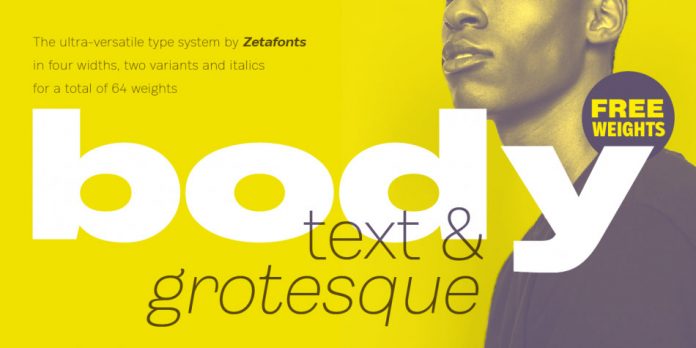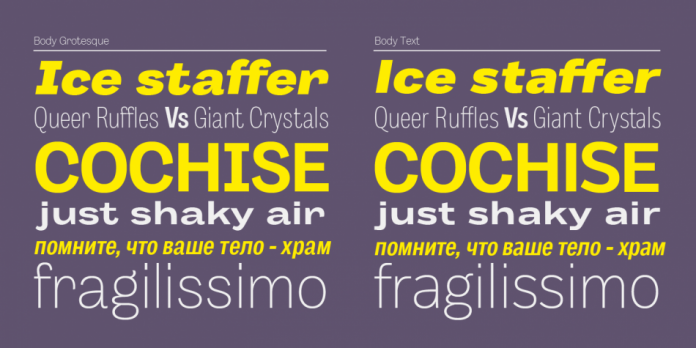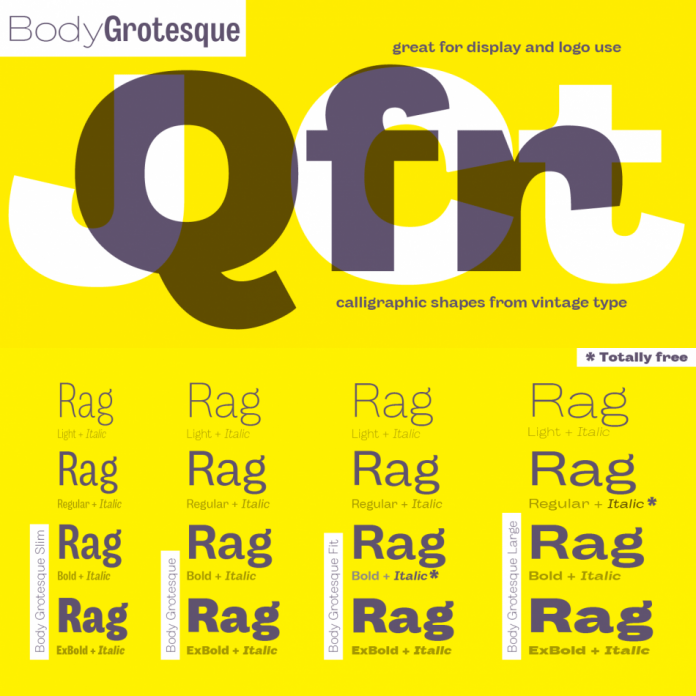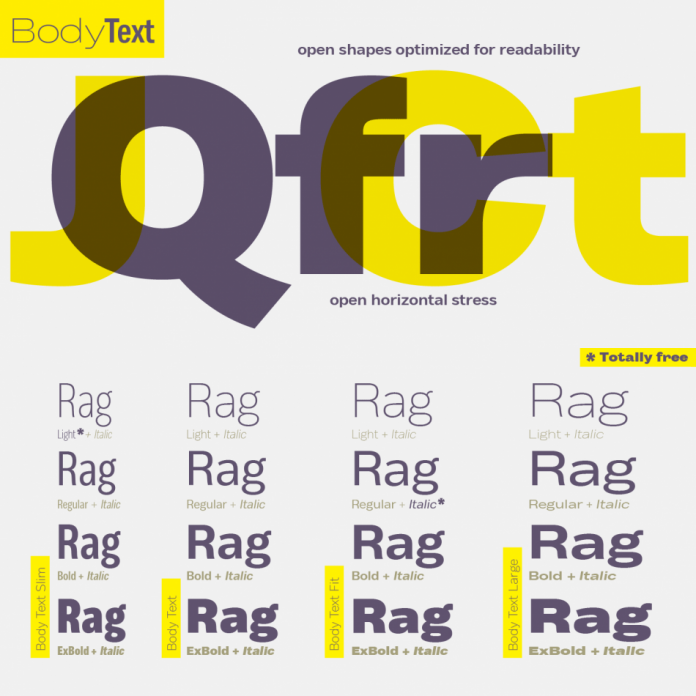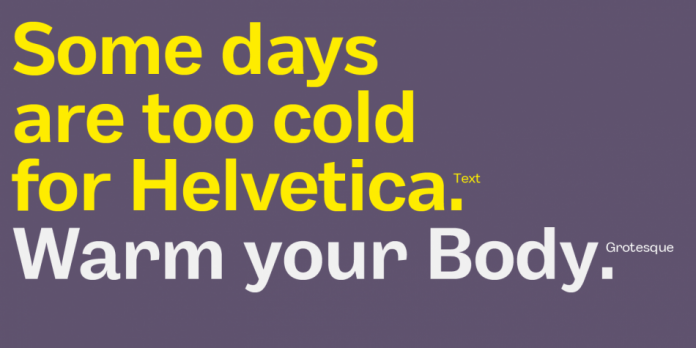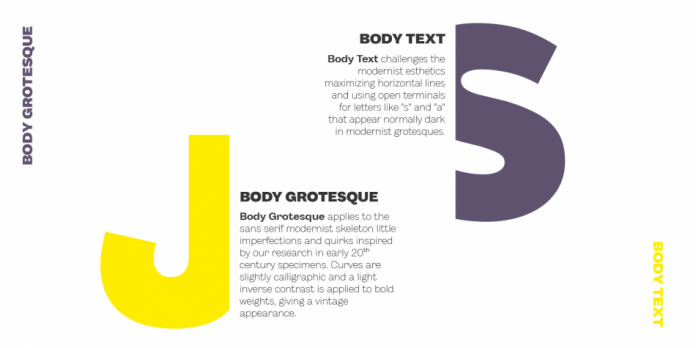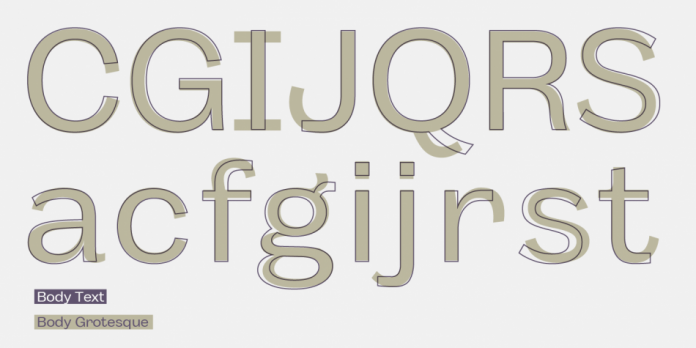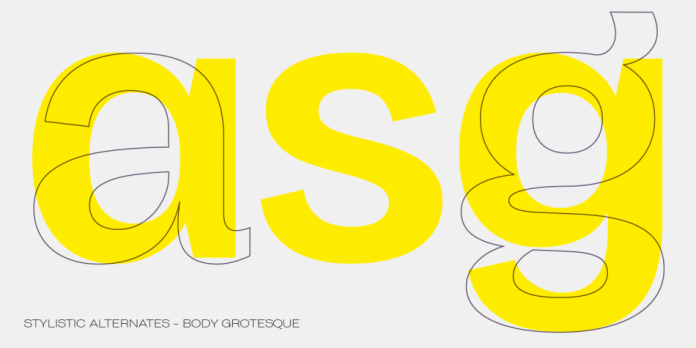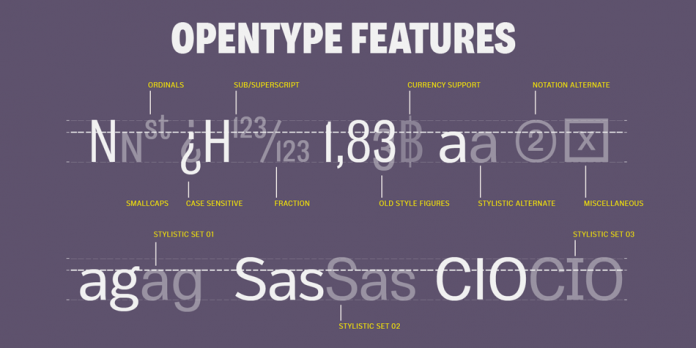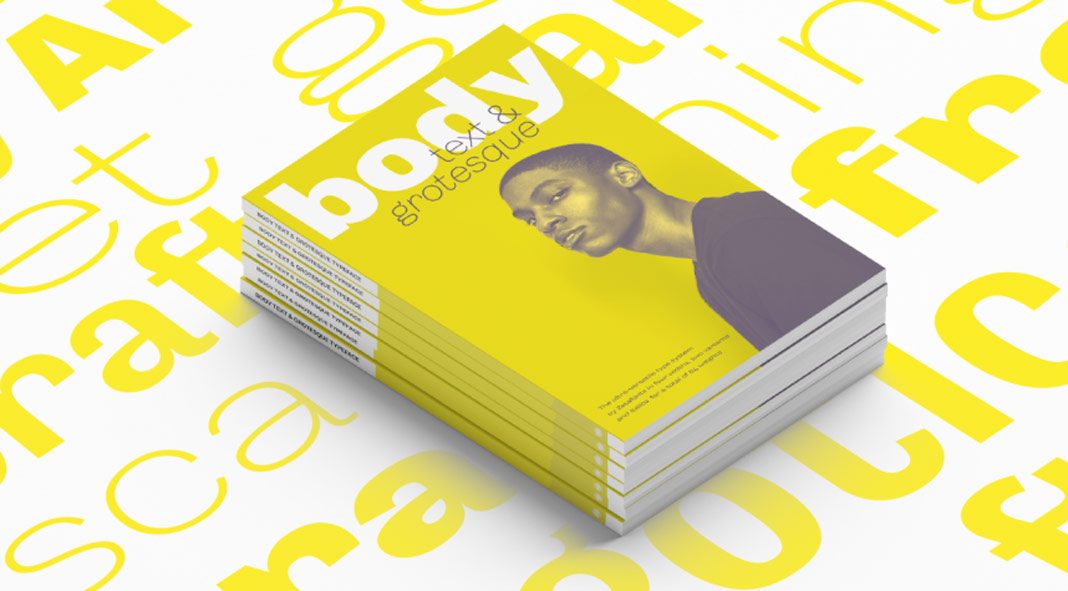
Designed by Cosimo Pancini and Andrea Tartarelli in 2018 for foundry Zetafonts, Body is a new sans-serif font family that comes with sixty-four styles. It has been developed as a contemporary alternative to modernist superfamilies such as Helvetica and Univers. The Body font family provides an optimized focus on readability while offering a versatile wide range of typographic options for the designer. The family includes two variants: Body Text and Body Grotesque. Each subfamily consists of four widths and four weights plus matching Italics. Please read more below or click on the following link to purchase the family.
Inspired by the designer’s research in type specimens of the early 20th century, Body Grotesque adds a little more humanist touch to the sans serif modernist design with little imperfections and quirks. Curves have a slightly calligraphic style while a light inverse contrast has been applied to bold weights
Based on maximized horizontal lines and open terminals for letters such as “s” and “a”, Body Text challenges modernist aesthetics
Both variants come with a standard width family which is slightly condensed in order to maximize space usage. A slim width has been designed for extremely dense texts or side notes. The Fit width is intended for display usage including headings and titles as well as logo designs. Last but not least, the large width manages to look elegant even in its lightest weight while being a solid heading or subtitle font in its extra bold weights
All 64 fonts include a complete Latin extended